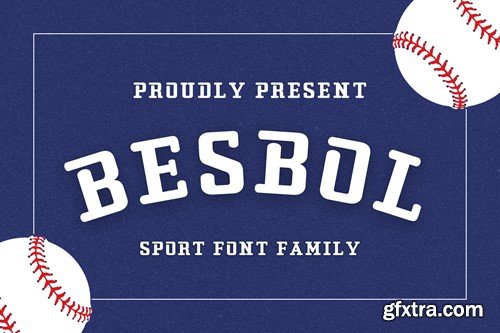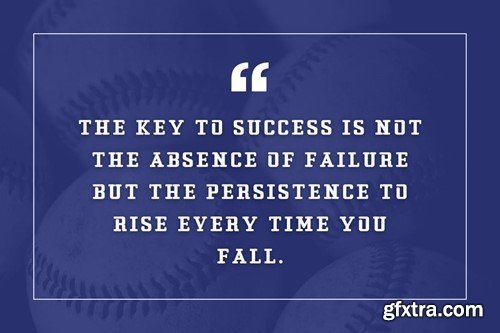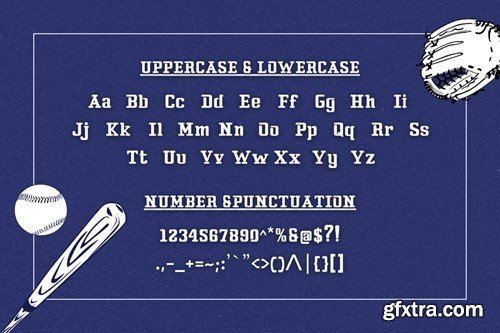
Besbol Display Font Family PEP8K2H
Besbol Display Font Family
Description
BESBOL is a premium display font, BESBOL is perfectly suited to sports logo.